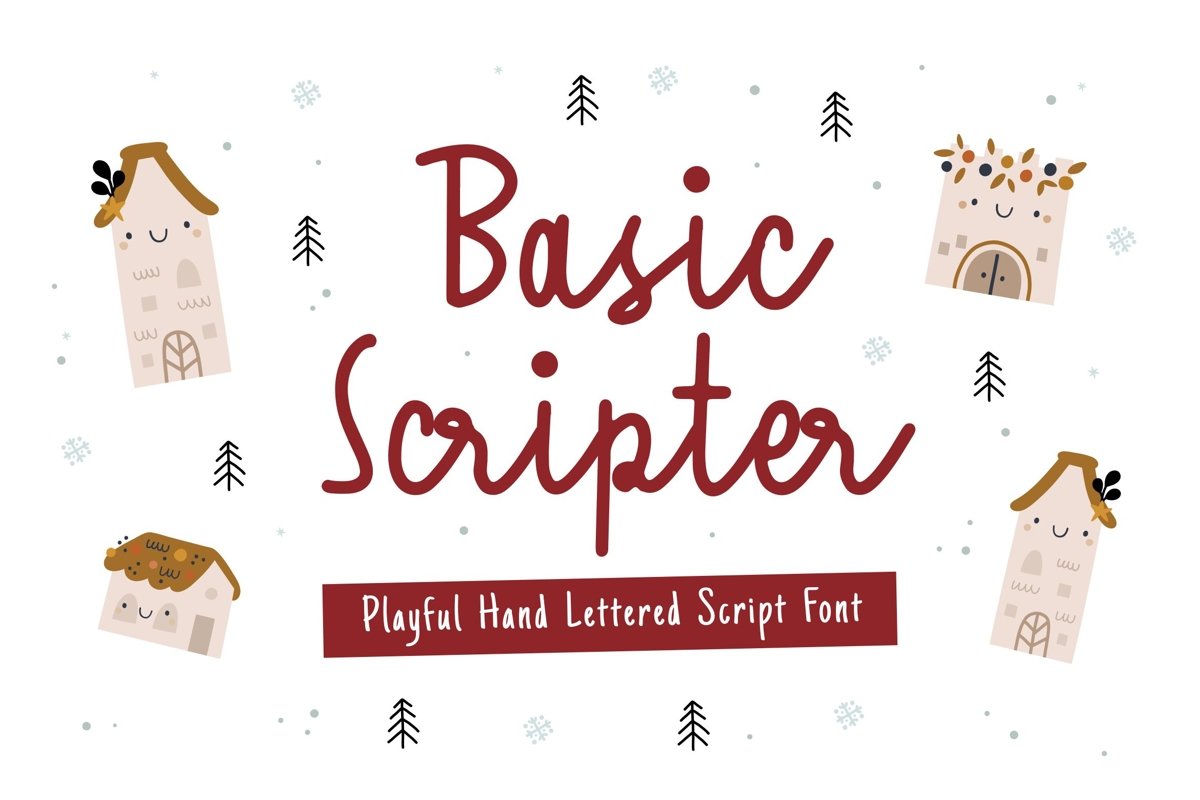
Basic Scripter Font for some designs such as the logotype, brand, packaging, quotes, music poster, t-shirt, cover book and more custom design. The features uppercase, lowercase, numeral, punctuation & symbol, multilingual support.
Basic Scripter